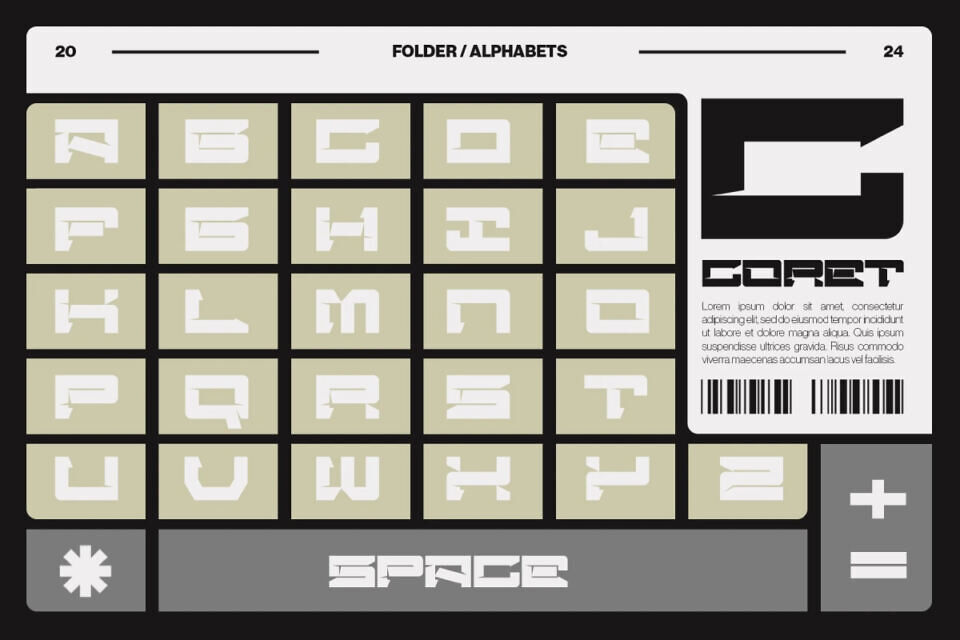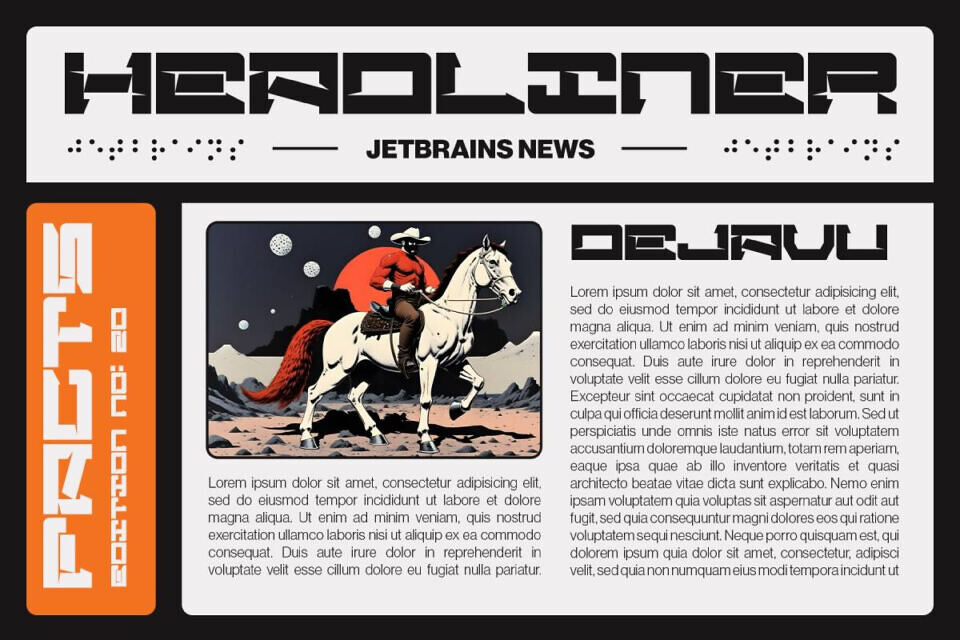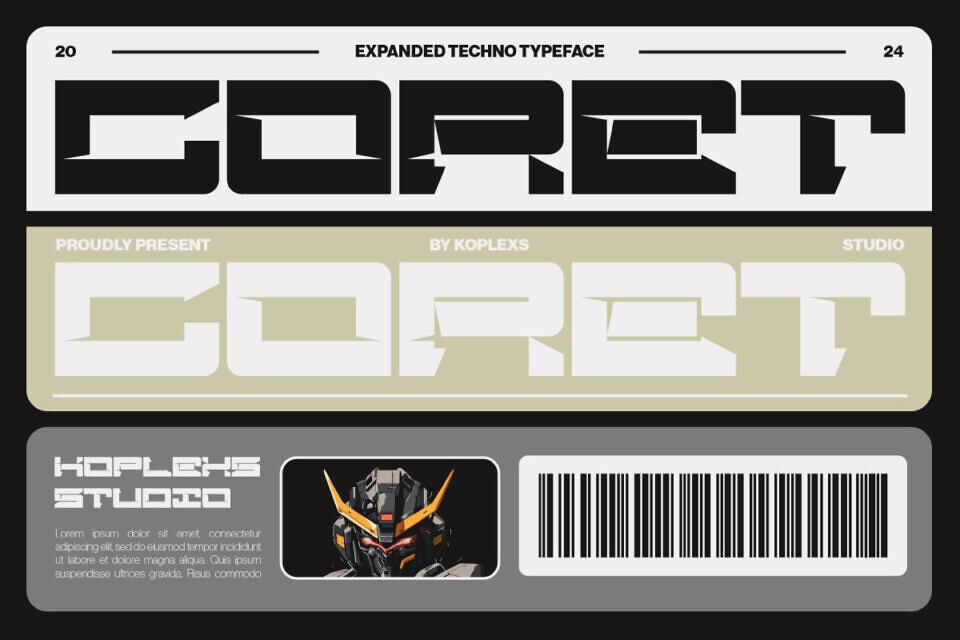
Coret Font
Coret Font is an expanded futuristic font designed for creators who want to make bold statements in the cyberpunk and tech world. Its sharp angles, geometric cuts, and clean sans serif structure make it a standout choice among modern tech fonts.
Whether you’re designing for games, science fiction themes, or digital interfaces, Coret Font brings a unique, futuristic edge that instantly elevates your work.